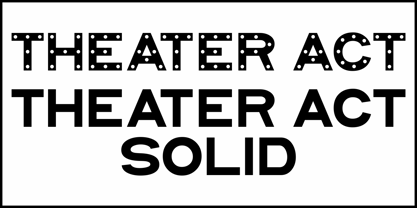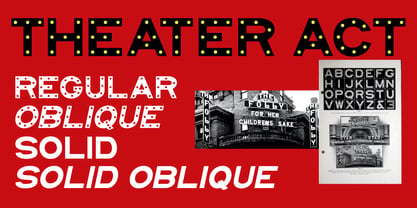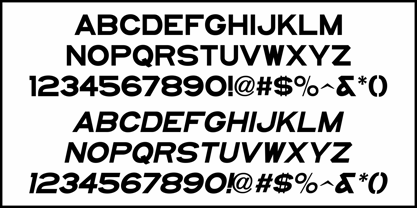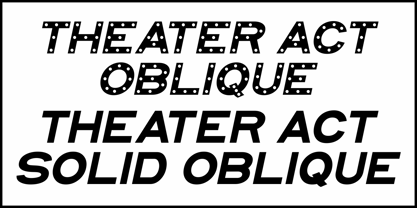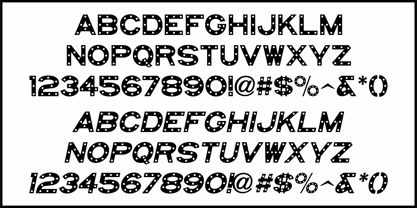
Theater Act JNL
by Jeff Levine
In the early days of illuminated theater signage, before fluoresecent panels and interchangeable plastic letters were the norm, theater managers relied on prefabricated letters with sockets for holding incandescent bulbs to showcase their acts and movies.
One manufacturer of these letters was the Metropolitan Engineering Company located in Brooklyn, New York. A page from their 1906 Electric Signs catalog provided a set of characters which have new been recreated digitally as Theater Act JNL - available in both regular and oblique versions.
For those who want to use a color back fill or simply have an alternate version of this type design for contrasting text, there is also Theater Act Solid JNL - also in regular and oblique versions.